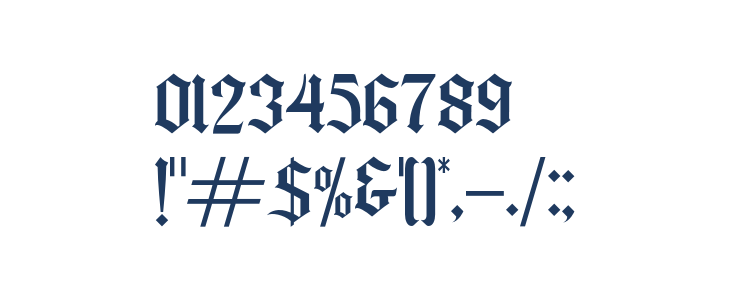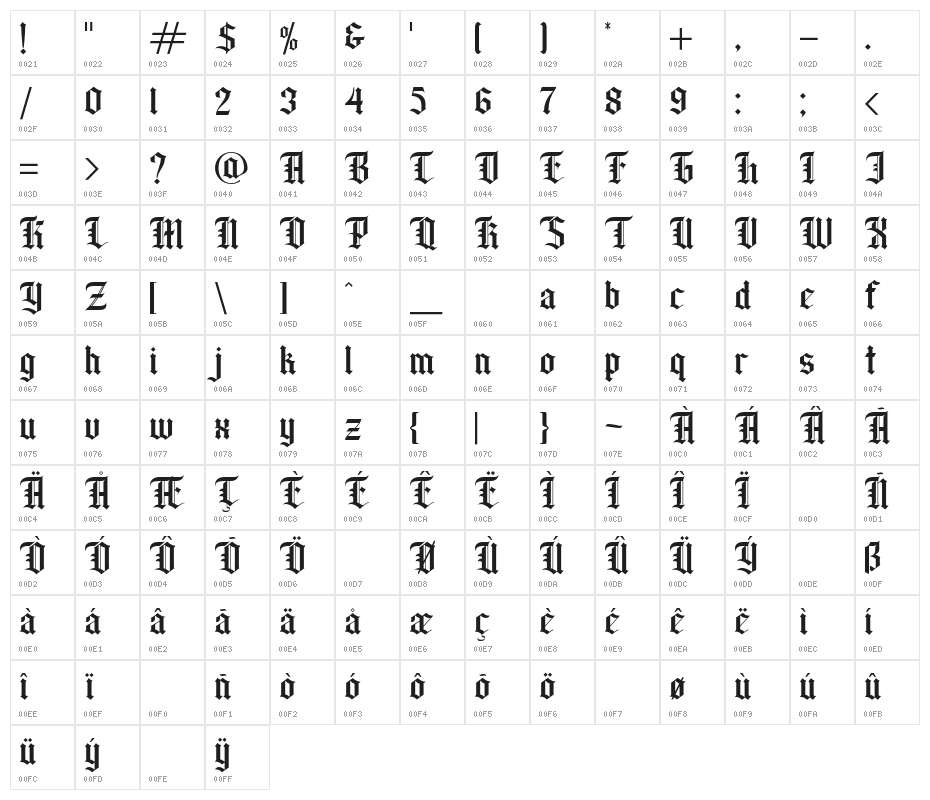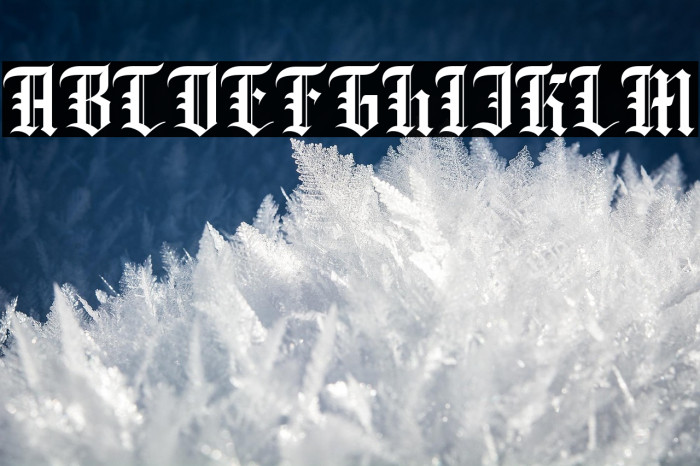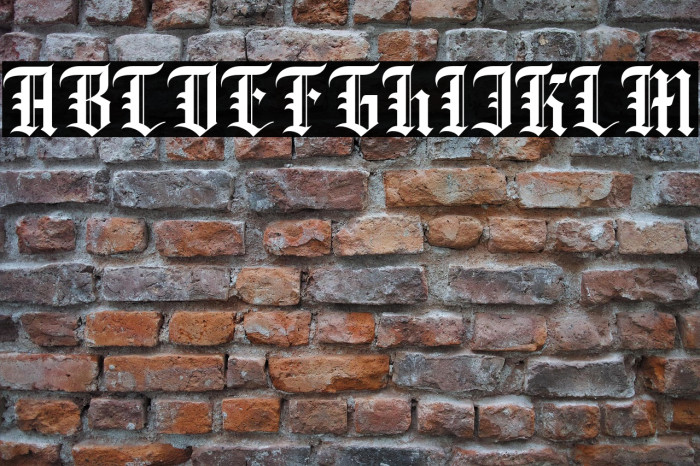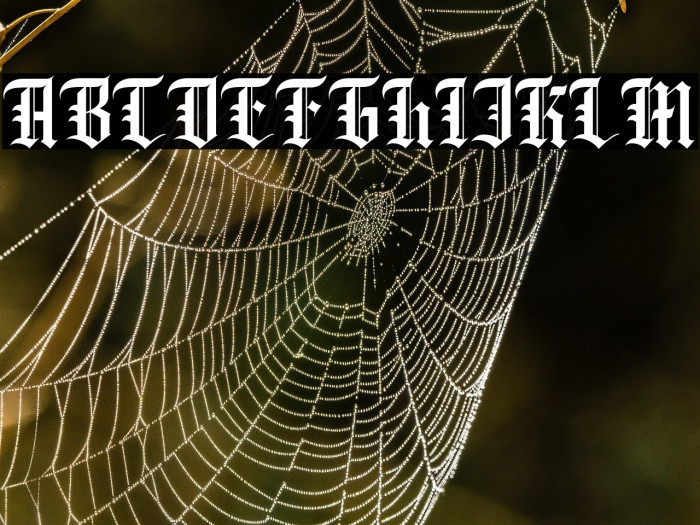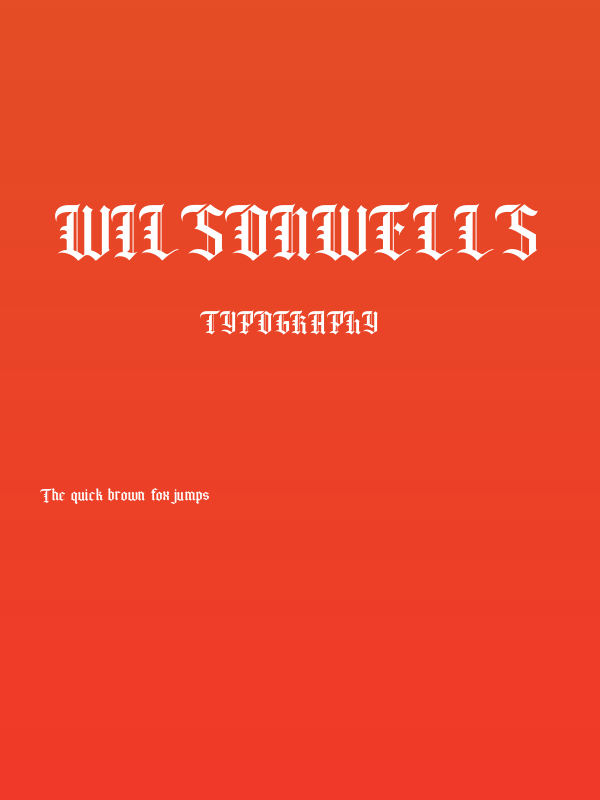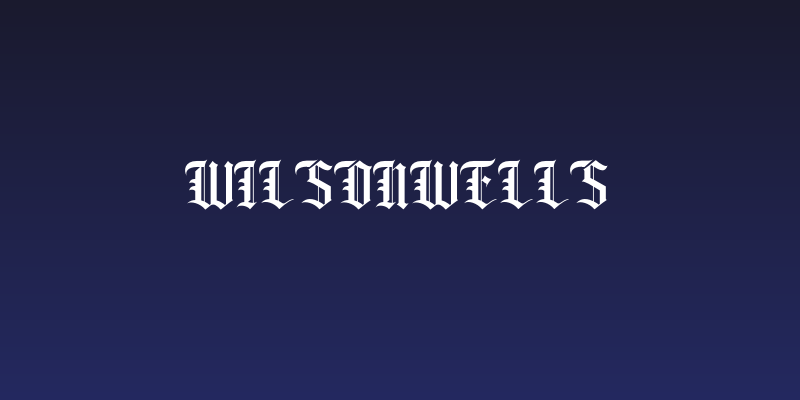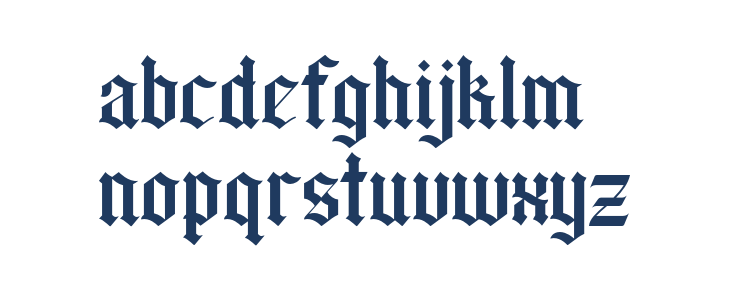
Wilsonwells Font
| 用途 | Headlines, Logos, Decorative text |
| おすすめプロジェクト | Ideal for projects requiring a historical or formal aesthetic, such as certificates, invitations, or branding for luxury products. |